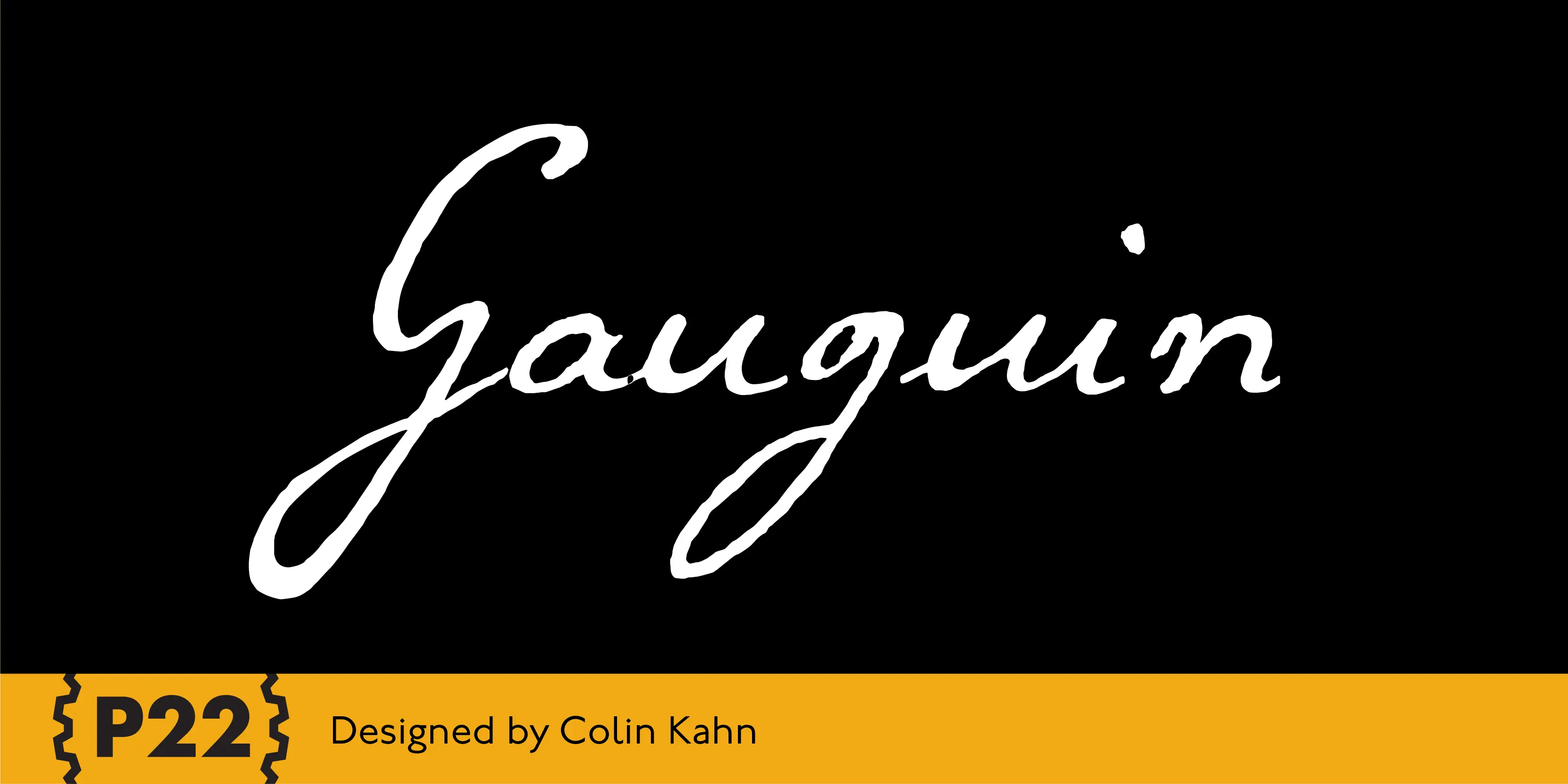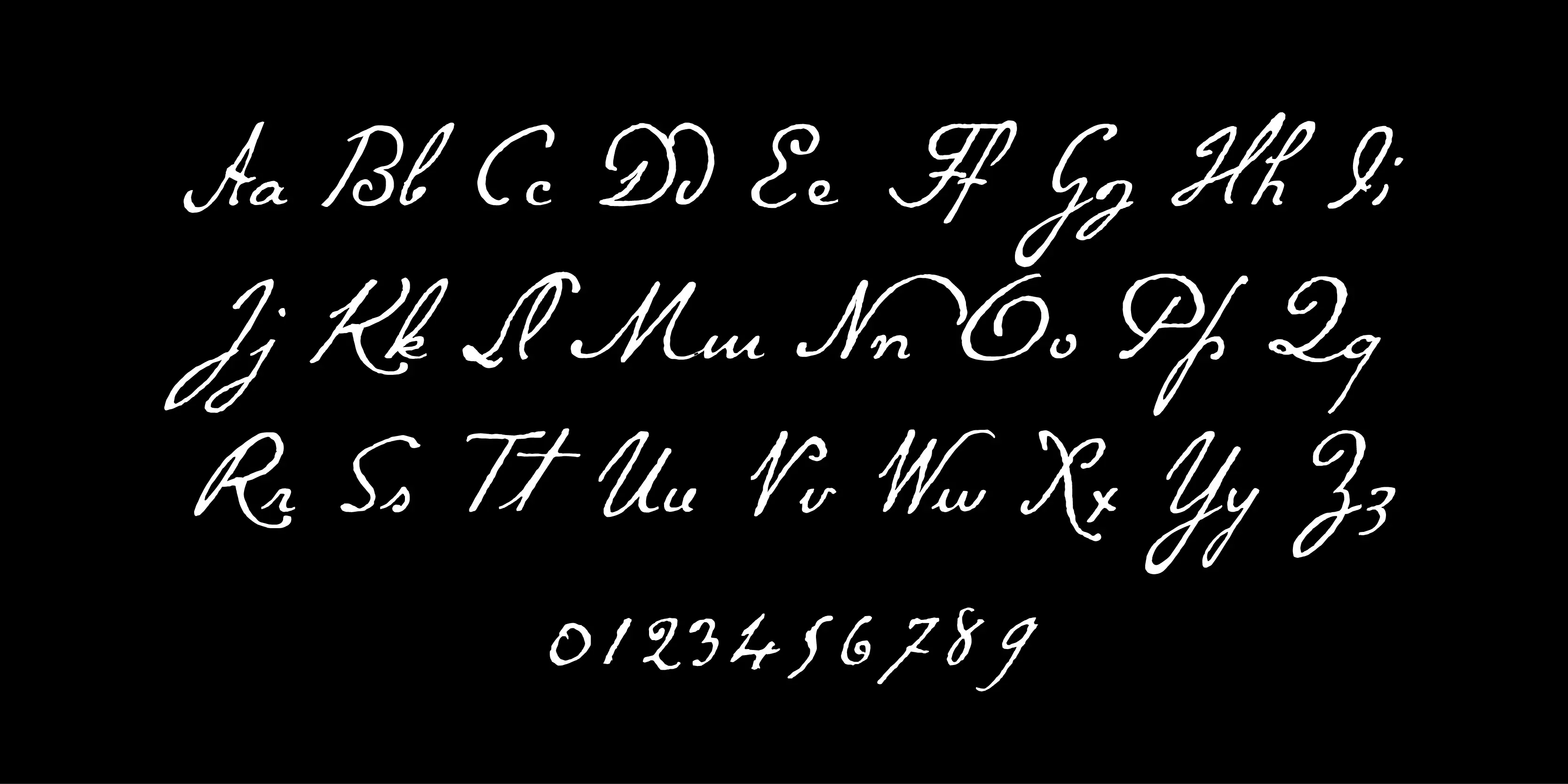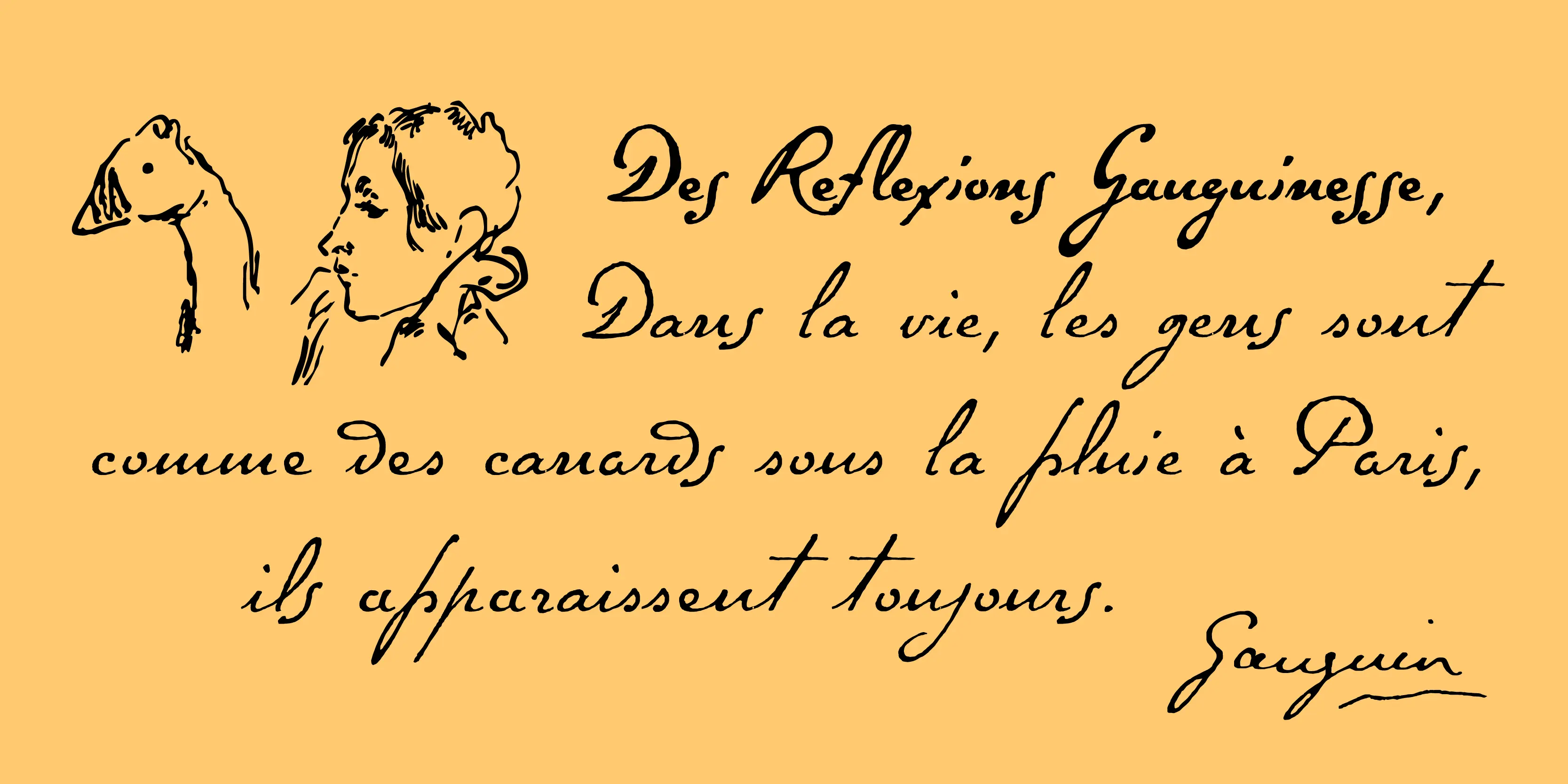
Gauguin Font Family
• Gauguin Regular
• Gauguin Brush
• Gauguin Extras
Gauguin
A script font set based on the writings and sketches of Post-Impressionist artist Paul Gauguin. This naturalistic writing font was based on Gauguin’s notebooks from his travels to Tahiti and the South Seas. This set presents two styles of script fonts (Regular & Brush) and a set of decorative extras featuring Gauguin woodcuts, sketches and imagery from his paintings.